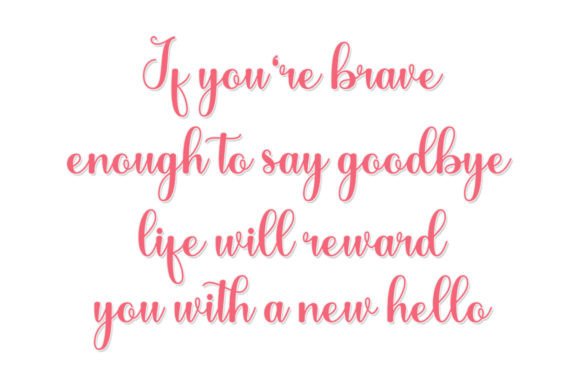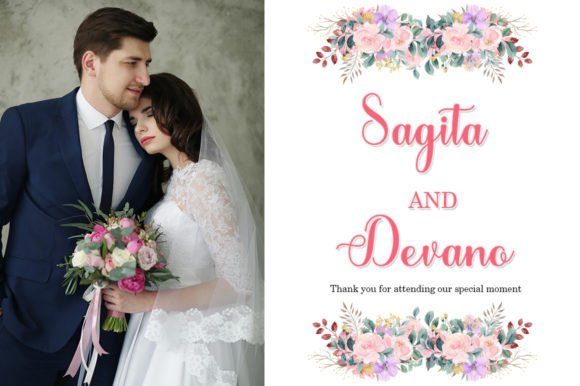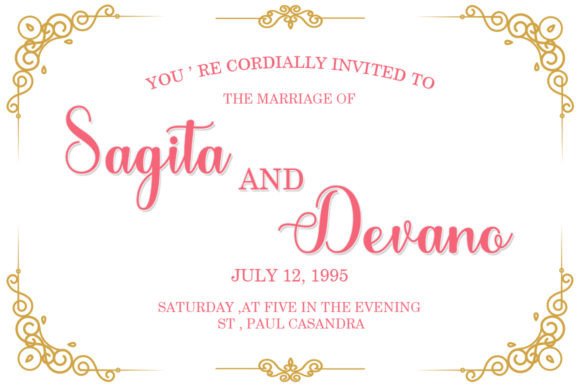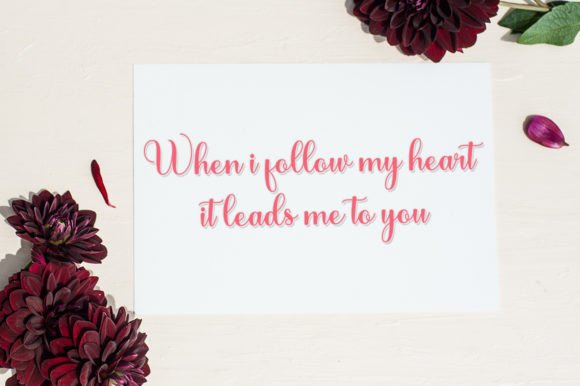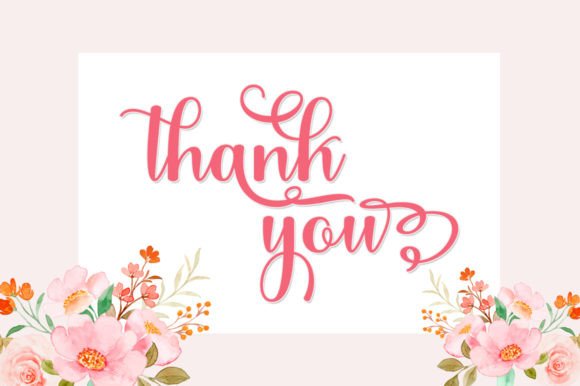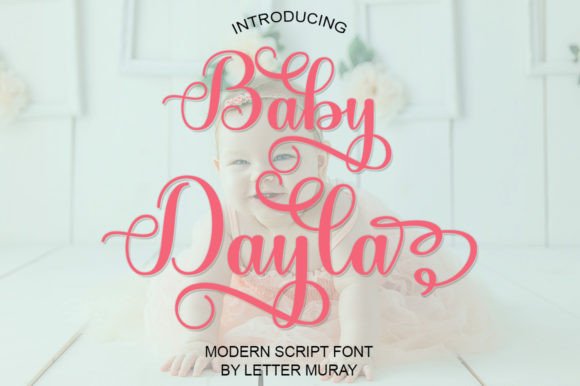
Baby Dayla Font: Elevate Your Designs with Elegance and Sophistication
In the world of typography, few fonts capture the essence of romance and luxury as beautifully as Baby Dayla. This stunning calligraphy typeface is designed to add a touch of elegance and sweetness to any design project, making it a perfect choice for crafters, designers, and anyone looking to create something truly special. In this article, we’ll dive into the features and benefits of Baby Dayla Font, and explore how it can elevate your designs to new heights.
The Beauty of Baby Dayla Font
Baby Dayla Font is a romantic, elegant, and sweet calligraphy typeface that boasts characters that dance along the baseline, creating a sense of movement and fluidity. This unique feature sets it apart from other fonts and gives it a distinctive charm that’s hard to resist. Whether you’re working on a wedding invitation, a branding project, or a packaging design, Baby Dayla Font is sure to add a touch of luxury and sophistication.
One of the standout features of Baby Dayla Font is its PUA (Private Use Area) encoding. This means that you can access all of the amazing glyphs and ligatures with ease, giving you complete creative control over your design. With PUA encoding, you can effortlessly navigate the font’s extensive character set, including swashes, alternates, and other special features that will take your designs to the next level.
Baby Dayla Font is a versatile typeface that’s perfect for a wide range of design applications. Whether you’re a professional designer or a crafter looking to add a personal touch to your projects, this font is sure to impress. Here are just a few ways you can use Baby Dayla Font:
- Wedding Invitations: Add a touch of romance and elegance to your wedding invitations, save-the-dates, and other stationery.
- Branding: Use Baby Dayla Font to create stunning logos, business cards, and letterheads that exude luxury and sophistication.
- Packaging: Elevate your packaging designs with Baby Dayla Font, perfect for high-end products, cosmetics, and gourmet foods.
- DIY Projects: Add a personal touch to your craft projects, such as handmade cards, gift tags, and scrapbooking pages.
Why Choose Baby Dayla Font?
With so many fonts available, why choose Baby Dayla Font? Here are just a few reasons why this typeface stands out:
- Unique Character: Baby Dayla Font boasts a distinctive character set that’s unlike any other font.
- Elegant and Sophisticated: This font exudes luxury and sophistication, making it perfect for high-end designs.
- Easy to Use: With PUA encoding, accessing the font’s features is effortless.
- Versatile: Baby Dayla Font can be used for a wide range of design applications.
| Font Name | Baby Dayla Font |
| Author | Letter Muray |
In conclusion, Baby Dayla Font is a stunning calligraphy typeface that’s sure to elevate your designs to new heights. With its elegant and sophisticated character, PUA encoding, and versatility, this font is perfect for designers and crafters looking to add a touch of luxury and romance to their projects. Whether you’re working on a wedding invitation, branding project, or DIY craft, Baby Dayla Font is the perfect choice. So why wait? Download Baby Dayla Font today and experience the beauty of elegant typography for yourself!